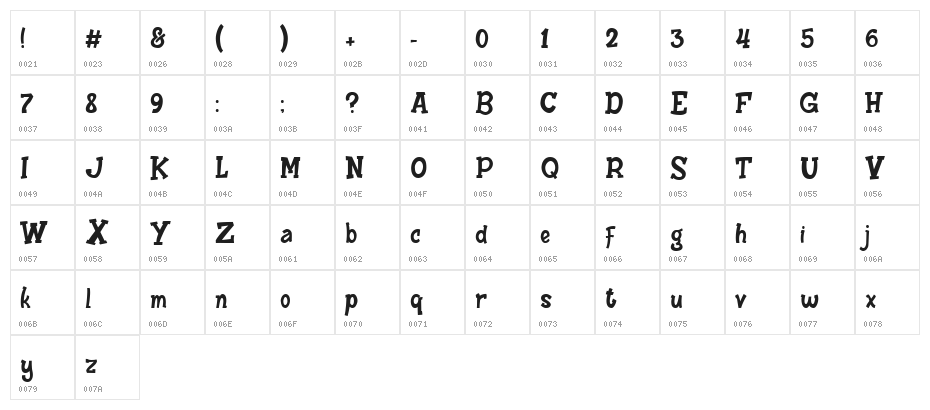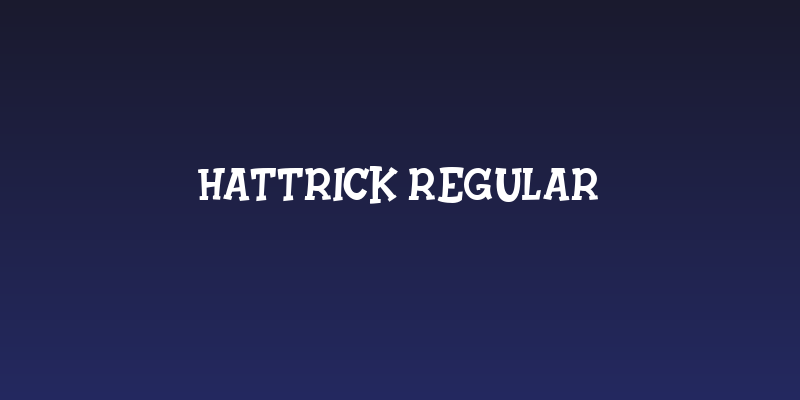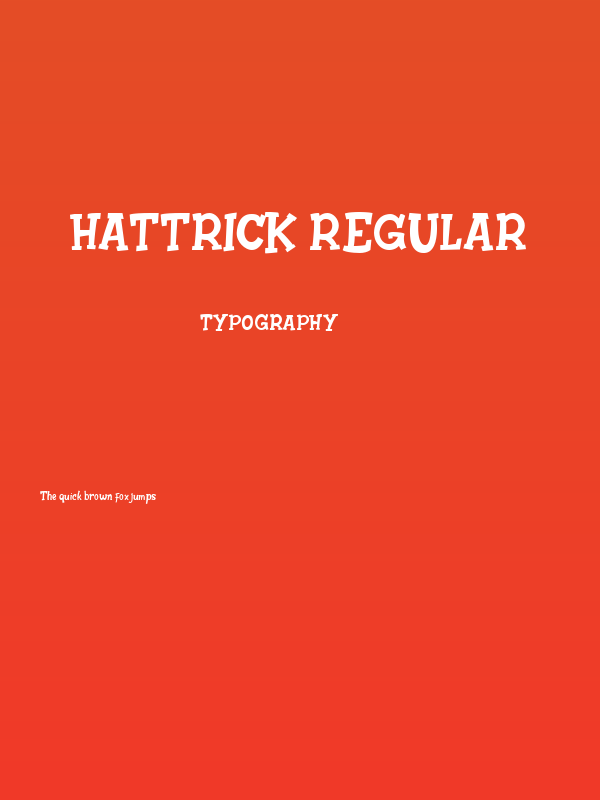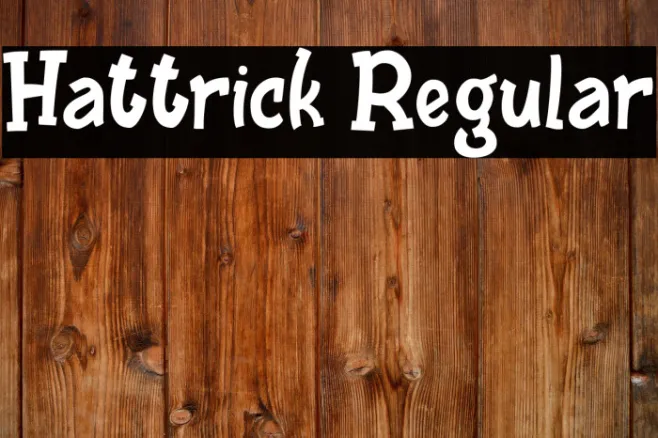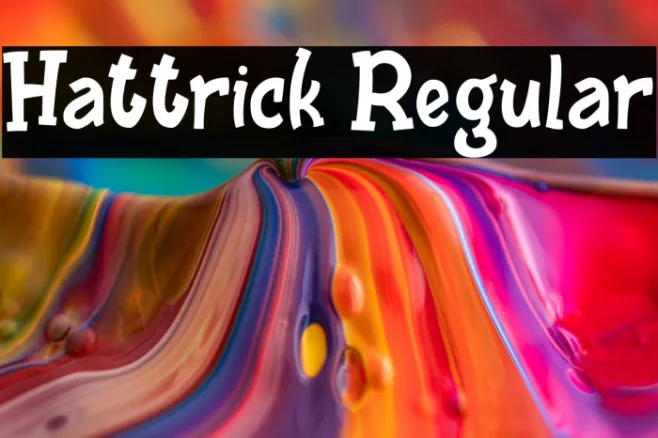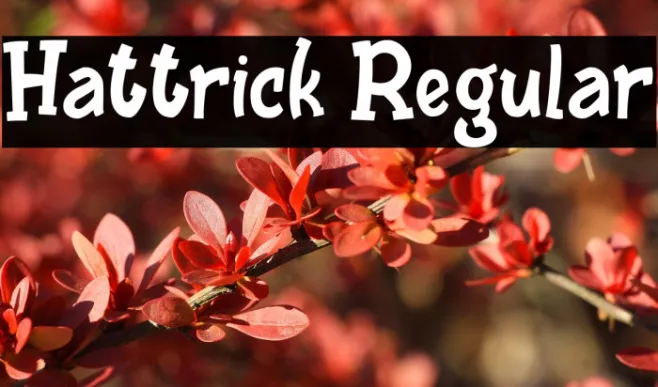
Hattrick Regular Font
Hattrick Regular Description
This font features a playful and dynamic style with a slightly whimsical touch. The characters have a bold presence, with a slight slant that adds a sense of movement and energy. The strokes are thick and consistent, providing a strong visual impact. The uppercase letters are robust and commanding, while the lowercase letters maintain a friendly and approachable feel. The numbers are clear and bold, ensuring readability. Special characters are designed with the same playful flair, making them stand out. Overall, this font exudes a sense of fun and creativity, making it suitable for projects that require a lively and engaging typeface.
| Overall Style | Playful, Creative |
| Proposed Projects | Ideal for children's books, playful branding, event posters, and creative advertising. |